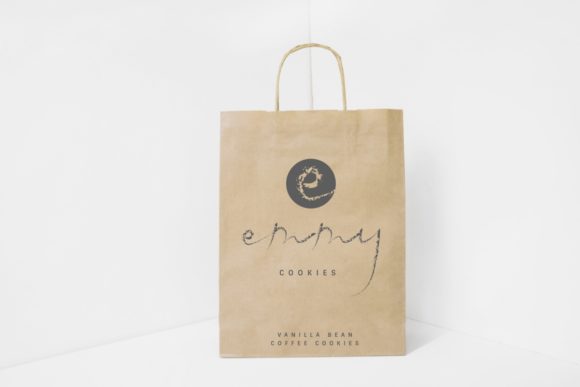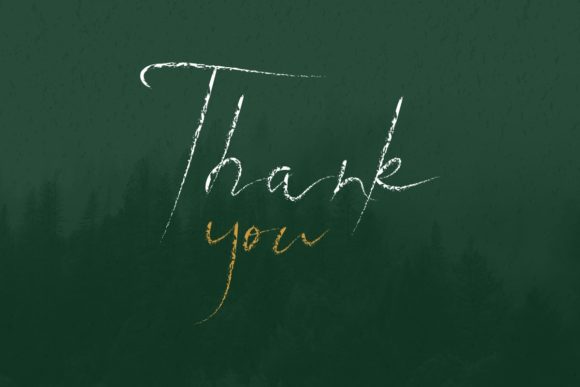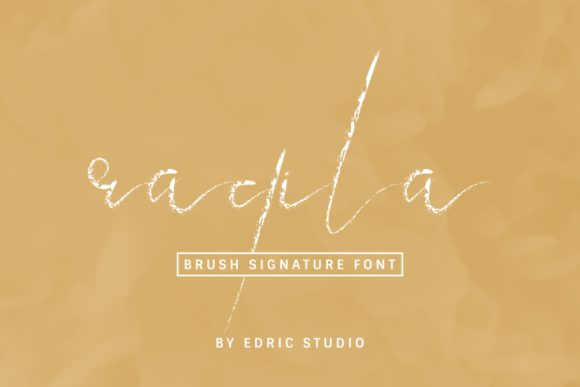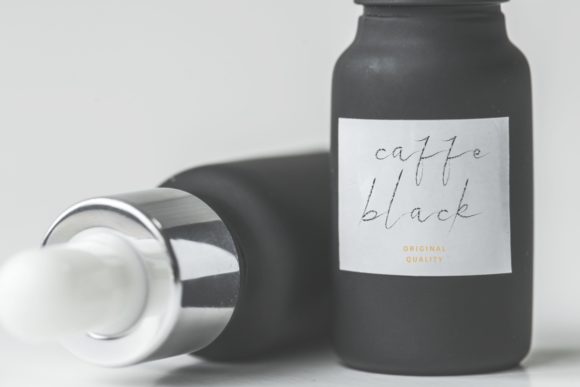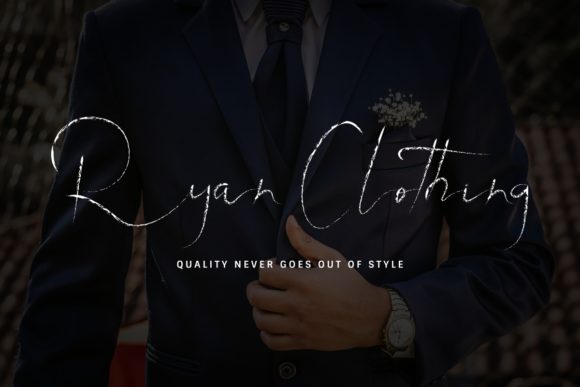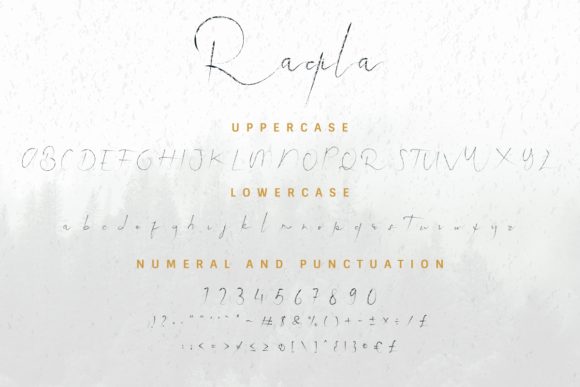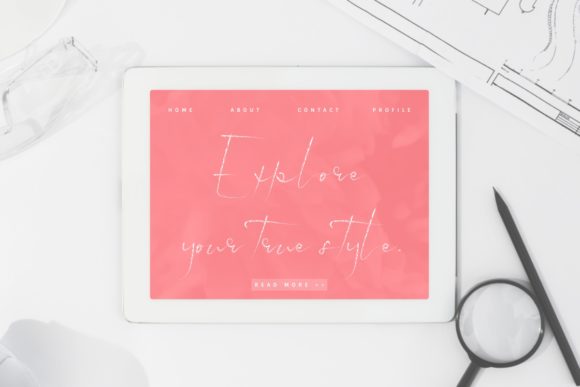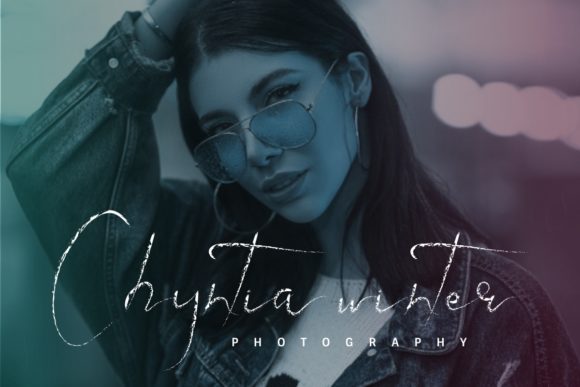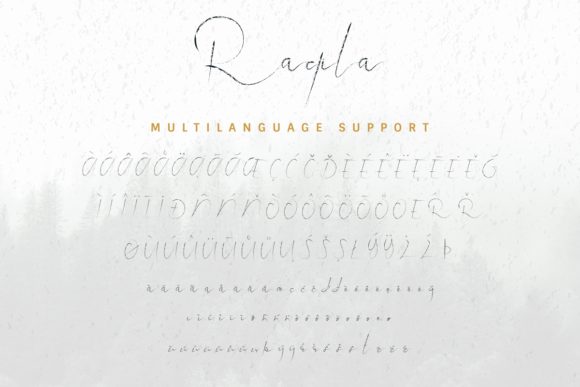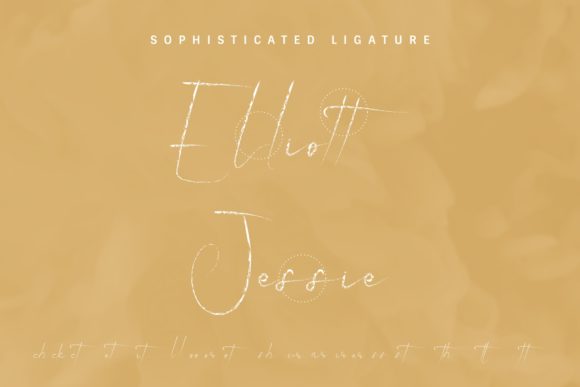
Raqila Font
About Raqila Font
Raqila is a unique and fun handwritten font, created by using a brush pen. It will elevate a wide range of design projects to the highest level, be it branding, headings, wedding designs, invitations, signatures, logos, labels, and much more!